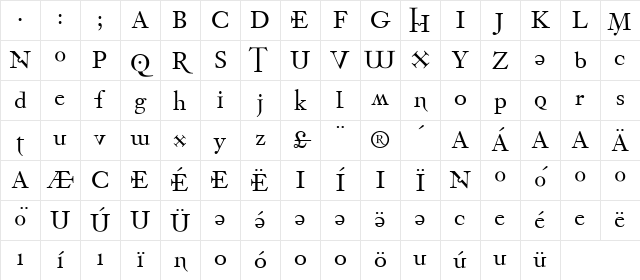
Complete AFHadrian Regular glyph index. Displaying only characters natively supported by AFHadrian Regular font.
AFHadrian is a composed and adaptable typeface that performs quietly and consistently across a wide range of design contexts.